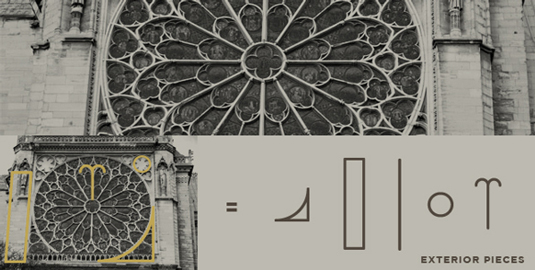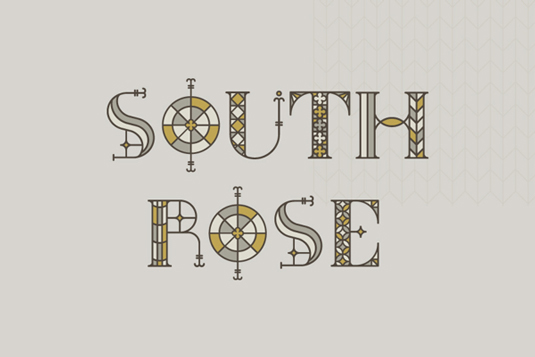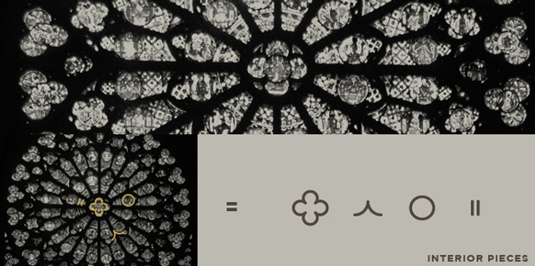
Font of the day: South Rose
South Rose by Sydney Goldstein
Graphic designer Sydney Goldstein developed this South Rose typeface for fictional luxury travel service. She was inspired by Parisian architecture during its development. "The font and branding is based on the South Rose Window at the Notre Dame Cathedral," she says.